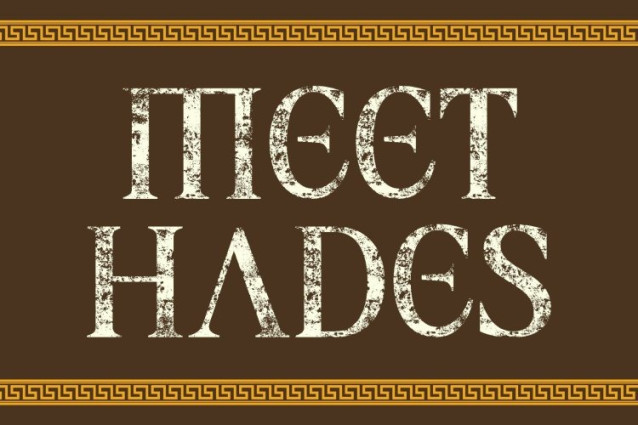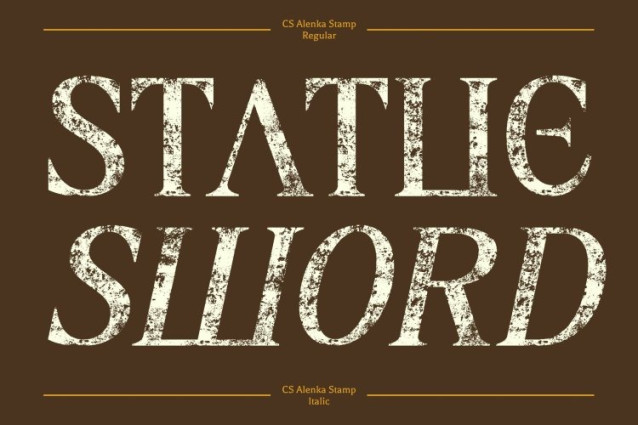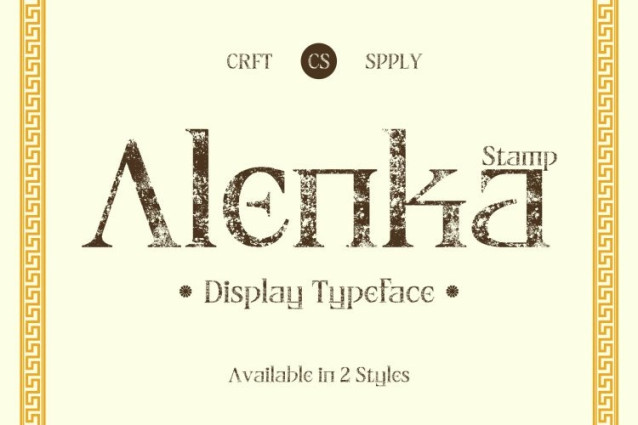
CS Alenka Stamp Font
CS Alenka Stamp Font This is a display serif font that blends clean, structured elegance with a beautifully aged stamp aesthetic. Its classic forms are enriched with subtle distress and worn textures, creating a typeface that feels timeless, artistic, and steeped in heritage. The stamp effect adds an old-world charm, giving each letterform a sense of history and handcrafted authenticity.
Refined Elegance with Artistic Texture
The elegant serif construction of this font is enhanced by textured imperfections that introduce depth and visual character. This artistic stamping effect softens the precision of its geometry, resulting in a balanced fusion of luxury and organic expression. The font maintains clarity and sophistication while embracing a vintage, tactile quality.
Luxury, Professionalism, and Old-World Appeal
Designed for premium branding, editorial layouts, and refined packaging, this font communicates confidence and prestige with a nostalgic twist. Its contrast-rich strokes combined with the aged texture evoke classic print traditions, making it ideal for projects that seek elegance with a sense of authenticity and tradition.
A Distinctive Serif for Timeless Design
More than a modern classic, this font stands as a statement of enduring style. It appeals to designers who value historical influence, artistic texture, and contemporary refinement. Perfect for fashion, invitations, logos, and high-end visuals, this font delivers grace, character, and a memorable vintage presence.